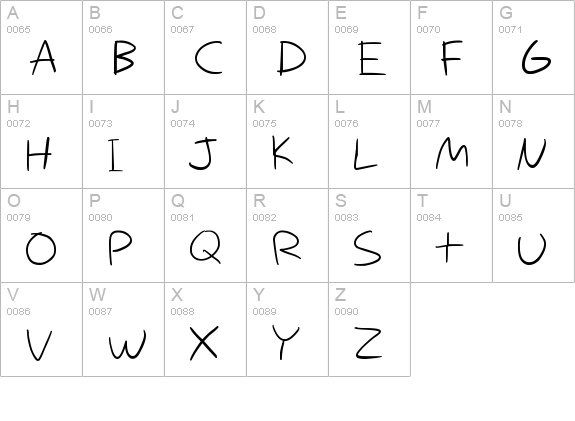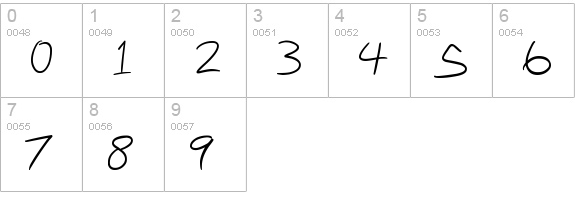
Nihilschiz Handwriting Font Details
Nihilschiz Handwriting font is a charming and whimsical typeface that adds a touch of personality to any design project. With its flowing strokes and unique letterforms, this font captures the essence of handwritten elegance. Whether you're creating greeting cards, invitations, or social media graphics, Nihilschiz Handwriting font is sure to make a statement. The best part? Nihilschiz Handwriting font is available for free download at FontsMarket.com. Now you can add a touch of handwritten flair to your projects without breaking the bank. Don't miss out on this opportunity to elevate your designs with the beauty of Nihilschiz Handwriting font. Download it today and let your creativity soar!